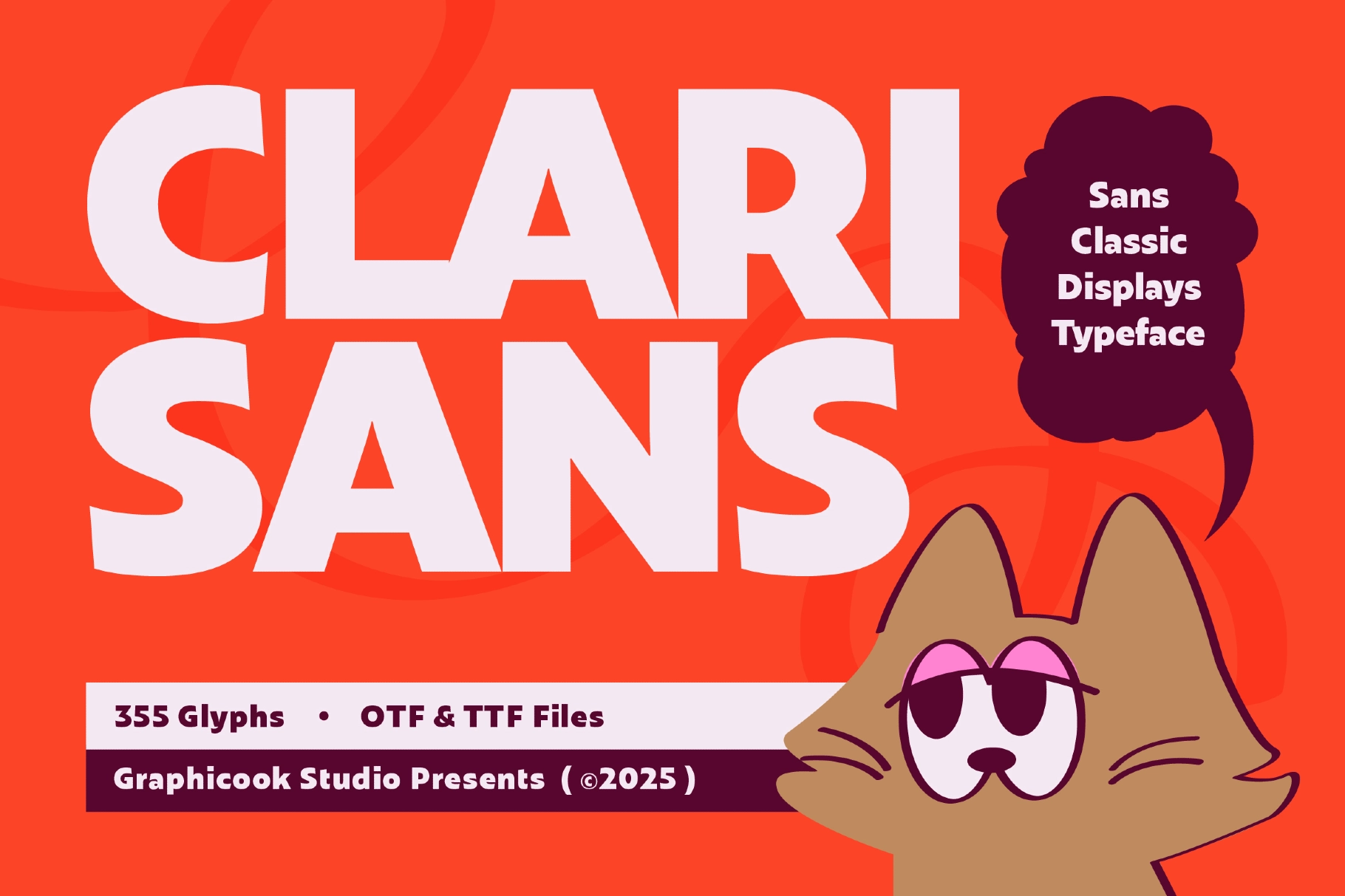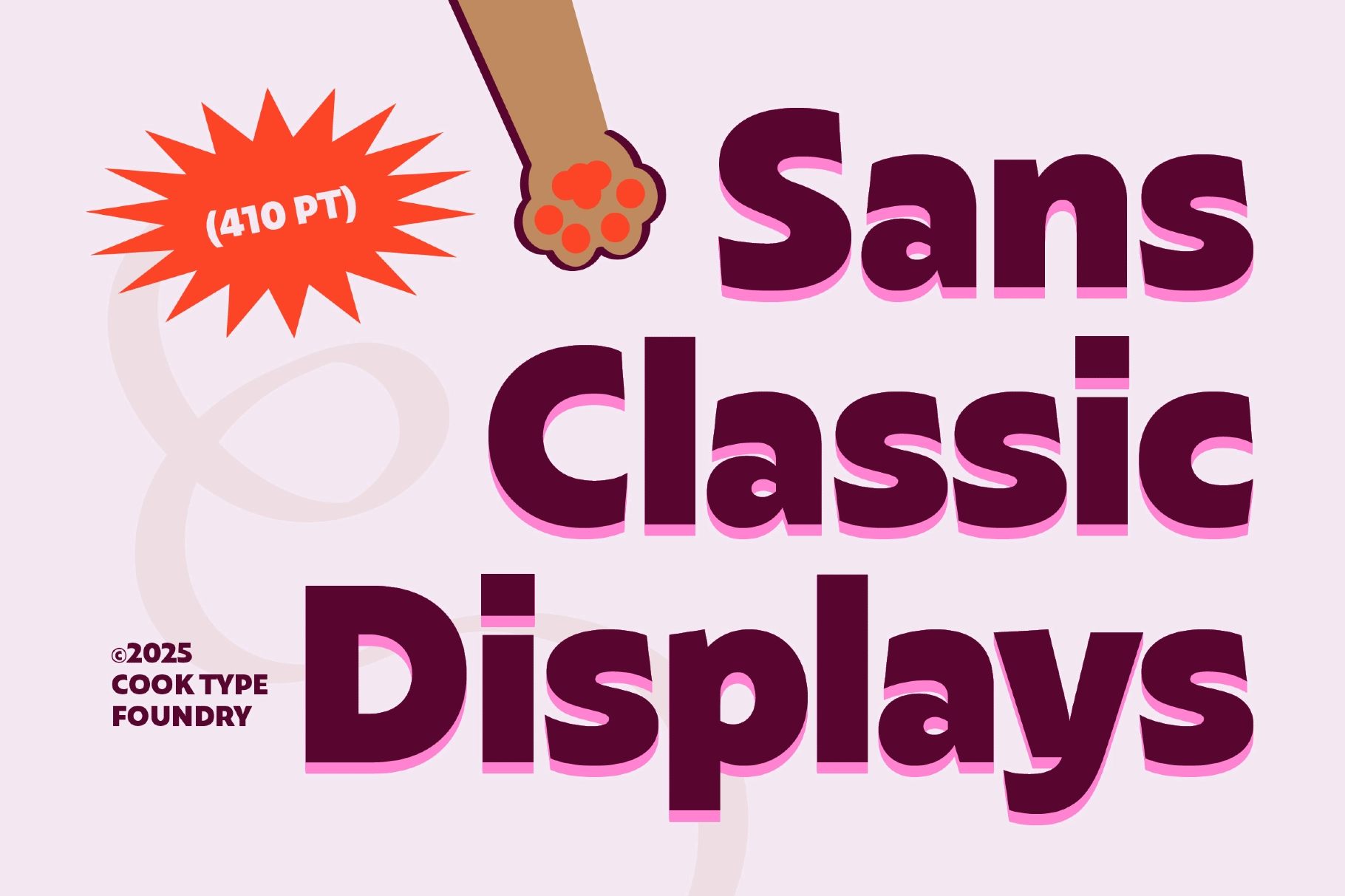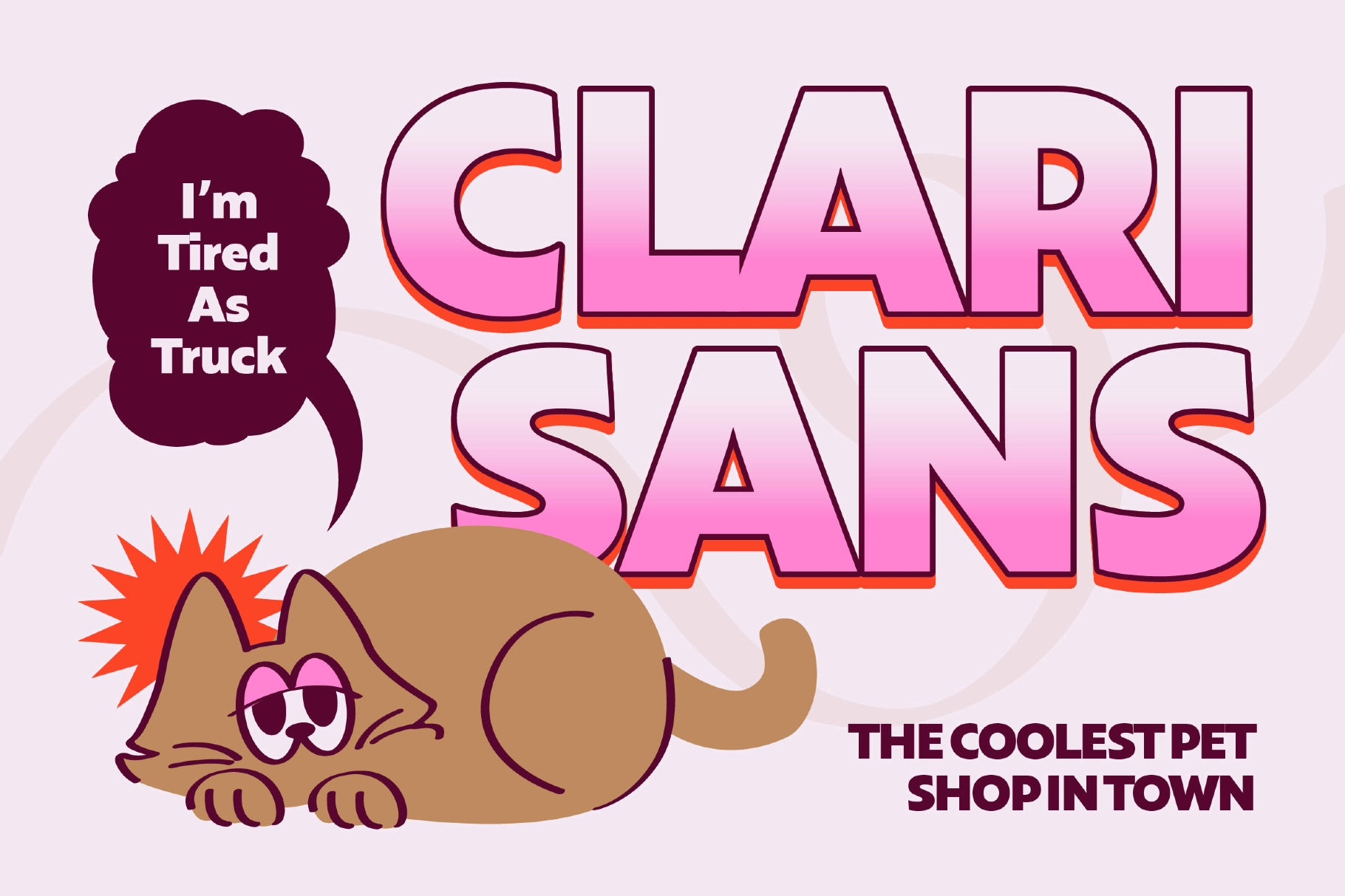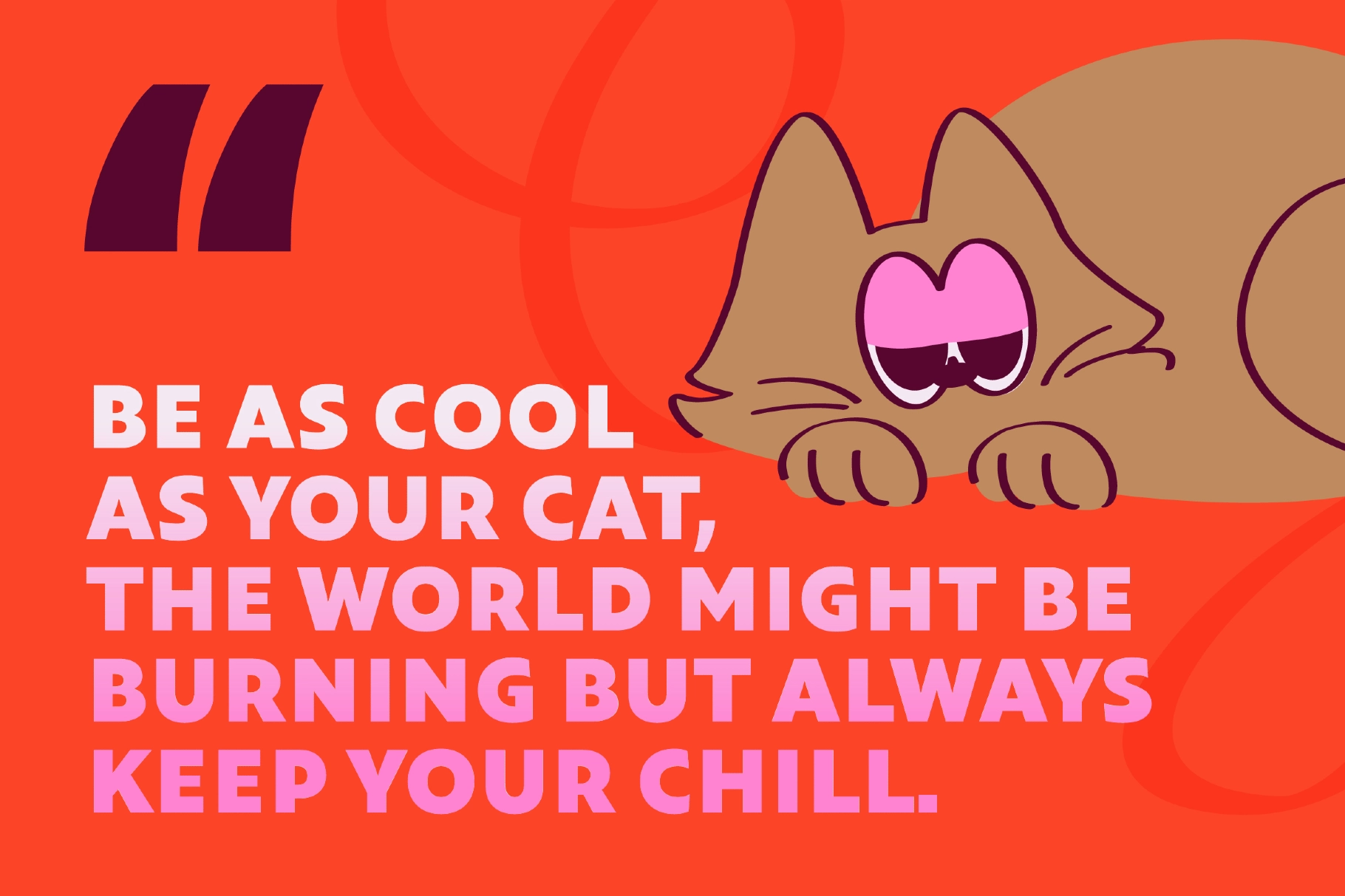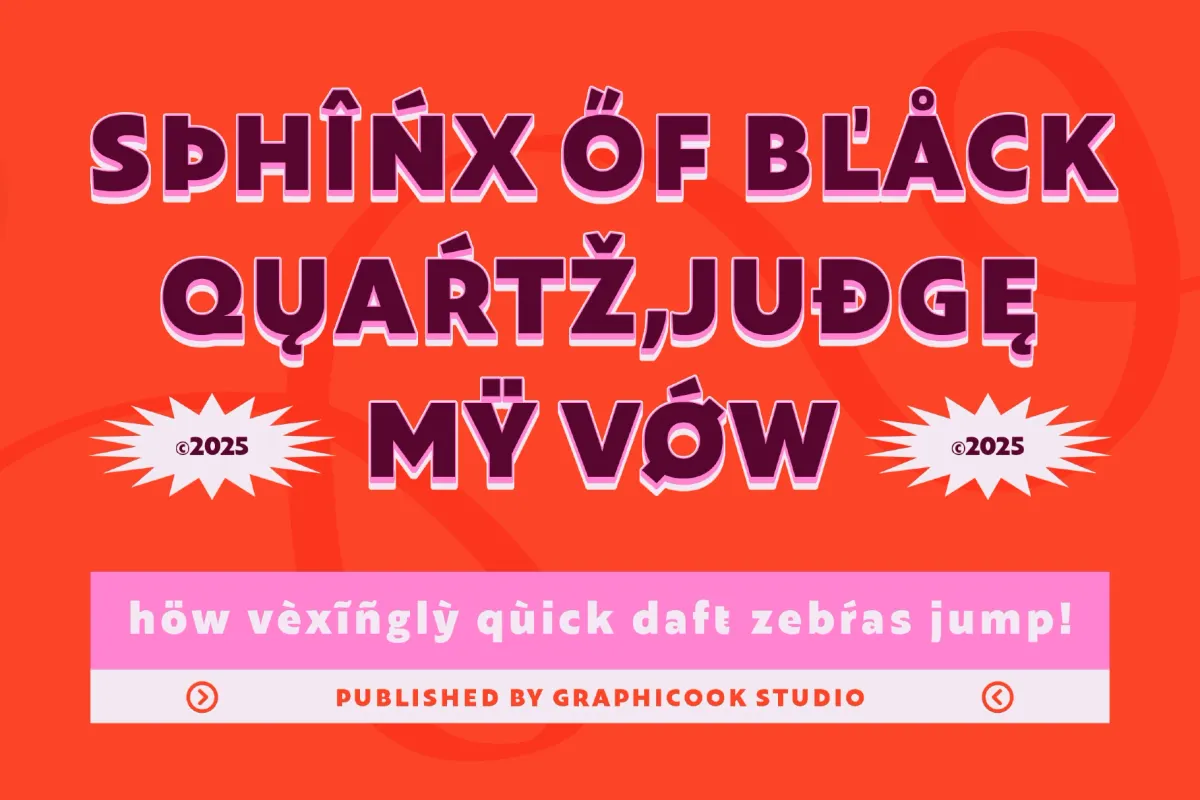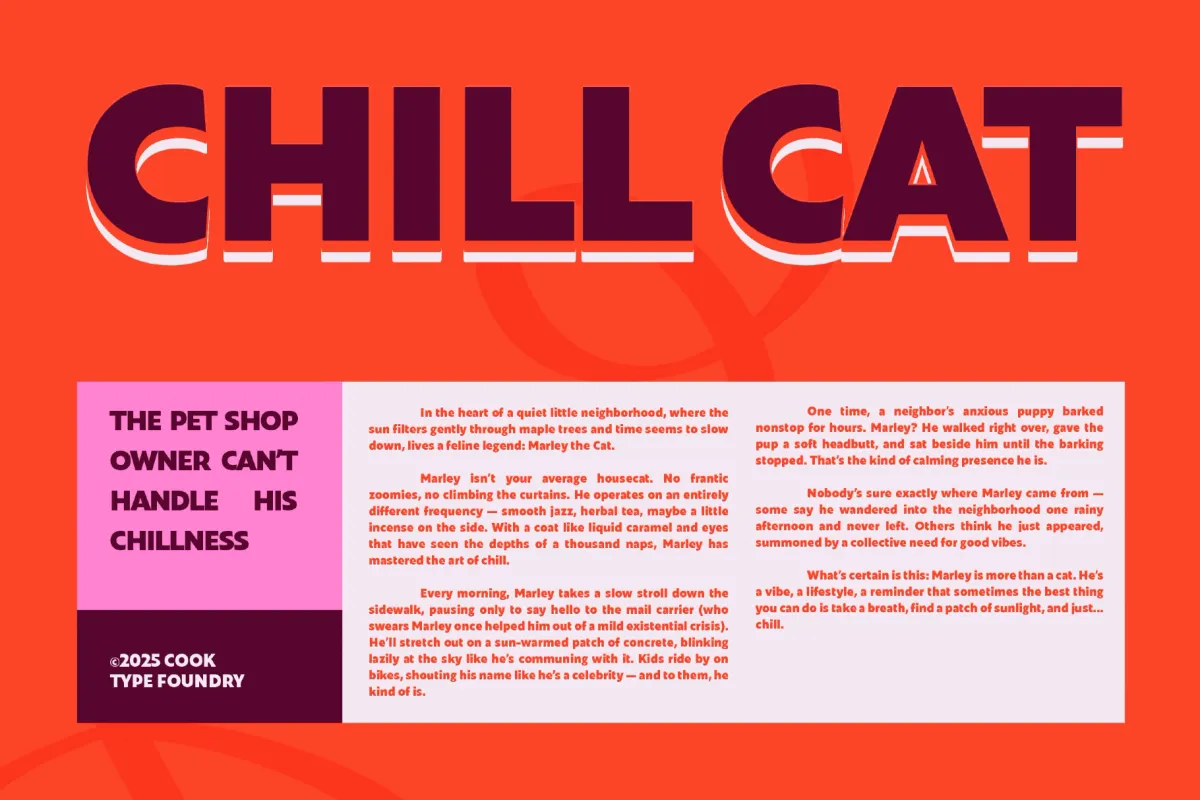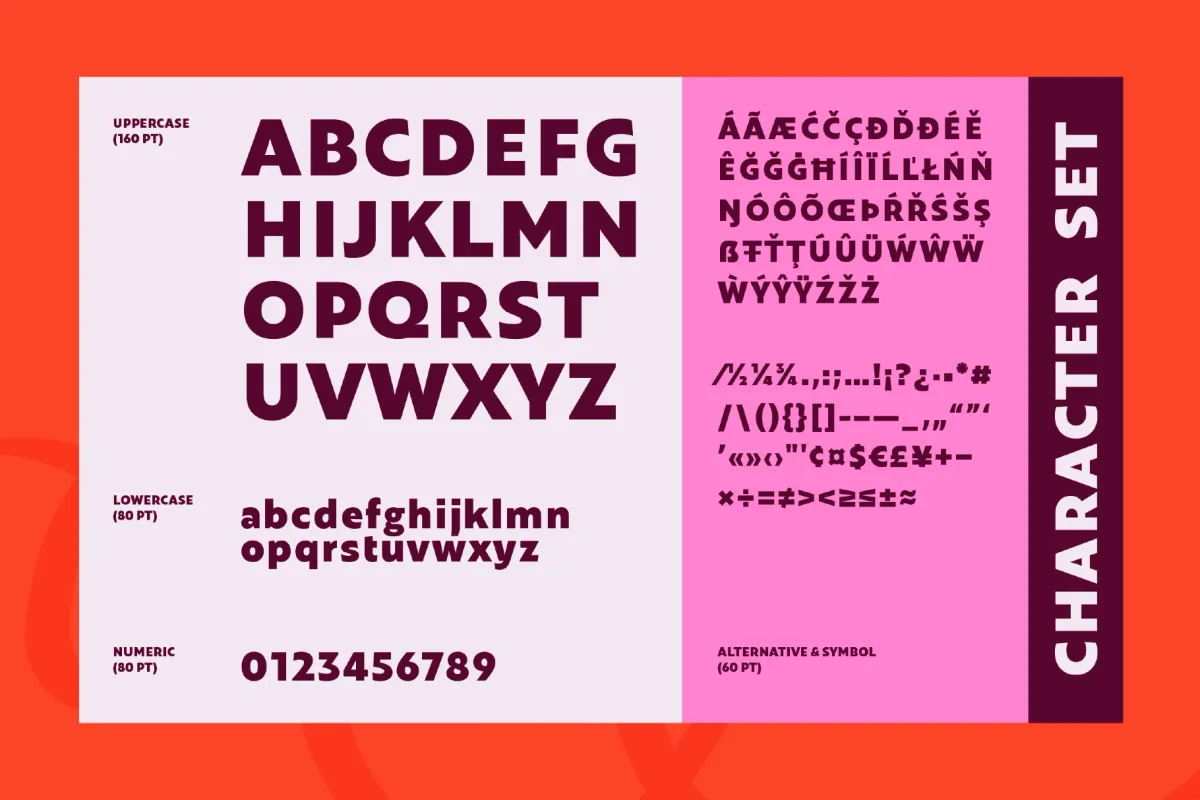
Clarisans Font
Clarisans
Clarisans is a sans-serif font with a fun and energetic vibe. Its expressive character makes it ideal for headlines or designs that aim to be bold, cheerful, and inviting.